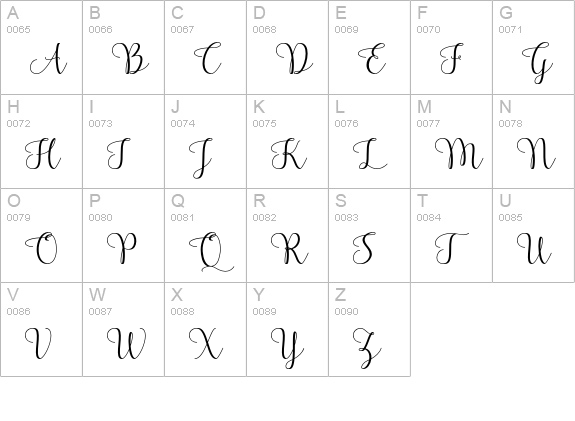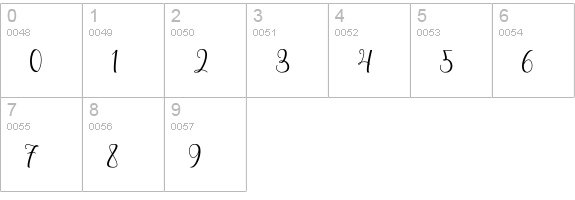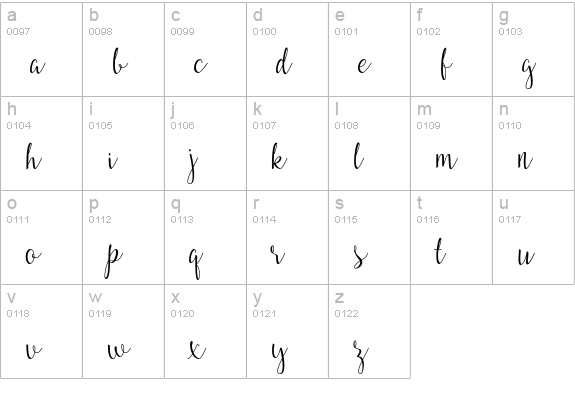
Fairybells Script Font Details
Fairybells Script font is a whimsical and enchanting typeface that exudes charm and elegance. With its delicate curves and flowing lines, this font is perfect for adding a touch of magic to your projects. Whether you are creating invitations, posters, or branding materials, Fairybells Script font will help you express your creativity in a stylish and unique way. The font's graceful letterforms evoke a sense of fantasy and wonder, making it ideal for a variety of design applications. The best part is that Fairybells Script font is available for free download at FontsMarket.com. This means you can easily access this beautiful font without any cost, allowing you to bring a touch of fairy-tale magic to your designs without breaking the bank. Don't miss out on the opportunity to add Fairybells Script font to your font collection and let your imagination soar with its charming and elegant style.